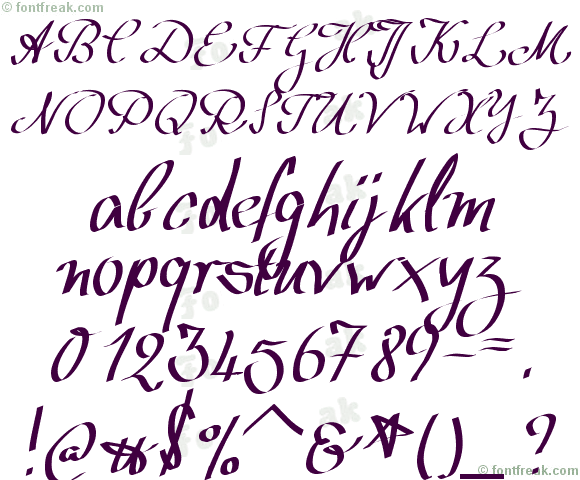
Wolgast Script
About Wolgast Script
Wolgast Script, designed by Peter Wiegel, is a captivating script font that embodies elegance and sophistication. As a handwritten typeface, it features flowing lines and graceful curves, making it ideal for a variety of creative applications. The stroke weight varies throughout the letters, creating a dynamic contrast that adds depth and visual interest. The spacing is meticulously crafted, ensuring that each character connects harmoniously while maintaining readability. Decorative elements, such as sweeping tails and unique ligatures, further enhance its artistic appeal, making it a standout choice for design projects.
This font excels in several specific use cases. It is particularly suited for wedding invitations, where its romantic style can convey love and celebration. Additionally, Wolgast Script can elevate the aesthetics of movie posters, giving them a touch of classic charm that attracts viewers. It shines in restaurant menus, where it can add a refined and inviting atmosphere, making dishes seem even more delectable. Graphic designers looking for an elegant touch in branding materials will find this font to be an excellent choice, while small business owners can use it to create unique promotional materials that capture customer attention. Content creators can also utilize Wolgast Script to enhance visual storytelling, whether in social media graphics or blog header designs.
Author Peter Wiegel